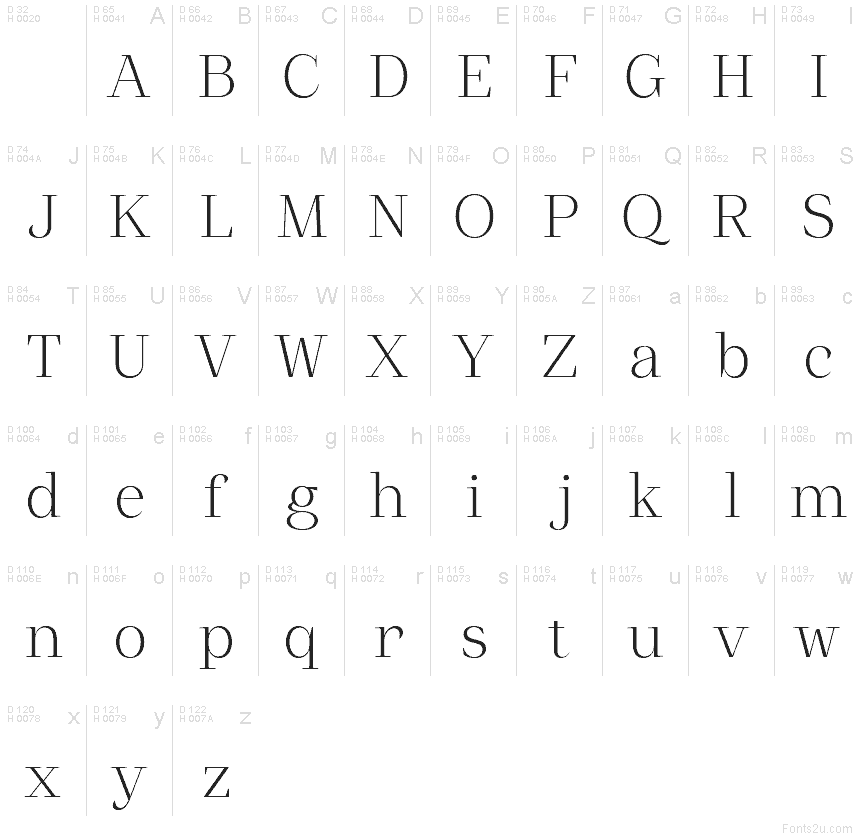
Klimaks Demo Bold
Klimaks Bold font by Kereatype Studio is a sleek, elegant, modern font that exhibits refined sophistication. Minimalistic serif elements readily show themselves through the letter combinations that make it up which then combine to spell words and sentences extraordinary in their appearance.
Its use cases are also extraordinary in terms of their versatility as this free serif font can be used for headlines, body fonts, fashion-related graphics, branding projects, advertisements, editorial work related to magazines and newspapers, artistic compositions like poetry and quotes publications.